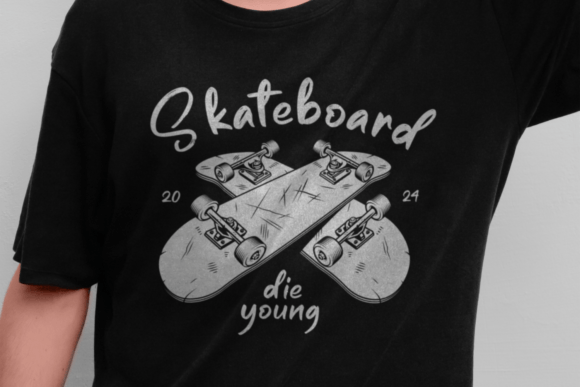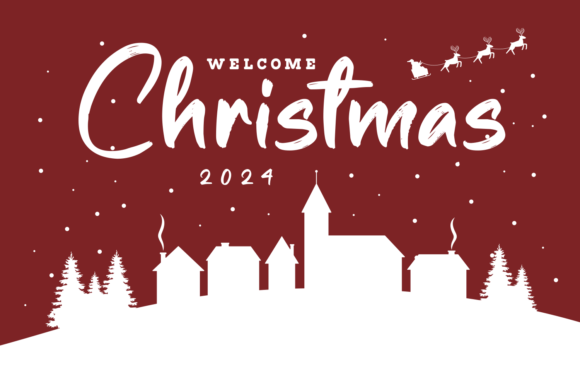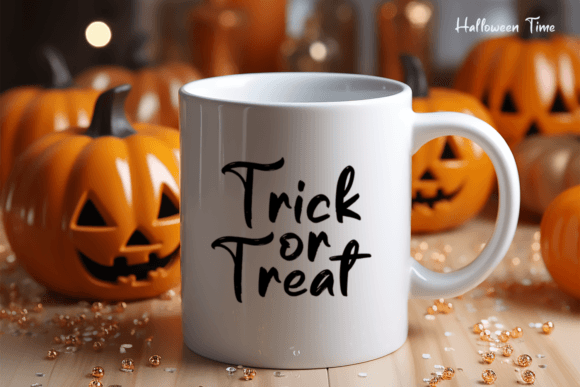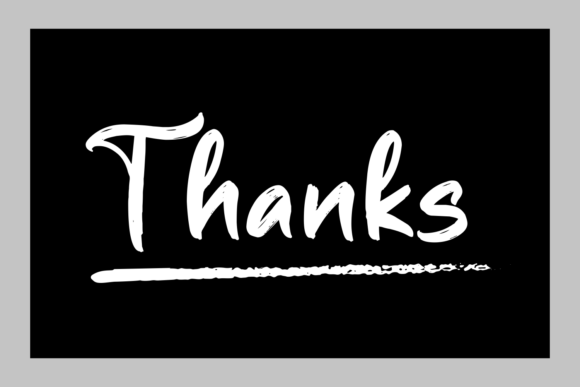
Genuinely Font: A Timeless Companion for Creative Pursuits
Imagine yourself transported to a bygone era, surrounded by the charm and elegance of vintage aesthetics. Our Genuinely Font is designed to evoke a sense of nostalgia, inviting you to experience the beauty of the past in a modern context. This multi-purpose Script Font is the perfect companion for designers, crafters, and writers looking to add a touch of sophistication and personality to their work.
A Font that Embodies Versatility and Beauty
Crafted with meticulous attention to detail, the Genuinely Font seamlessly blends versatility with beauty. Its unique artisan touch mirrors the visual depth of hand-made designs, injecting personality into every venture. Whether you’re working on journal entries, floral typography, or heartfelt notes, this font is designed to elevate your creative pursuits with its inimitable style.
The Perfect Companion for Journal Entries and Floral Typography
The Genuinely Font is particularly well-suited for journal entries and floral typography. Its elegant and cursive script makes it perfect for adding a personal touch to your writing, while its versatility allows it to be used in a variety of creative contexts. For designers and crafters, this font offers endless possibilities for creating beautiful and unique visual content.
Capturing the Warmth and Intimacy of the Human Touch
The Handwritten Font, a part of the Genuinely Font family, captures the warmth and intimacy of the human touch. Perfect for heartfelt notes and personal scribbles, this font embodies a distinct character and spark that is sure to resonate with your audience. Its unique and organic feel makes it an excellent choice for designers and writers looking to add a personal touch to their work.
Exploring the Paradox of Destruction and Craftsmanship
One of the most intriguing aspects of the Genuinely Font is its ability to beautifully pair a disruptive aesthetic with the allure of typography. This paradox of destruction and craftsmanship is a hallmark of the font’s unique character, making it an excellent choice for designers and crafters looking to push the boundaries of creativity.
Key Features of the Genuinely Font
• Multi-purpose Script Font: Perfect for journal entries, floral typography, and a variety of creative pursuits.
• Unique Artisan Touch: Mirrors the visual depth of hand-made designs, injecting personality into every venture.
• Elegant and Cursive Script: Adds a touch of sophistication and elegance to any design or writing project.
• Versatile and Beautiful: Seamlessly blends versatility with beauty, making it perfect for a wide range of creative contexts.
• Handwritten Font: Captures the warmth and intimacy of the human touch, perfect for heartfelt notes and personal scribbles.
In conclusion, the Genuinely Font is a timeless companion for designers, crafters, and writers looking to add a touch of elegance and personality to their work. Its unique artisan touch, versatility, and beauty make it an excellent choice for a wide range of creative pursuits. Whether you’re working on journal entries, floral typography, or heartfelt notes, this font is sure to elevate your creative pursuits with its inimitable style.